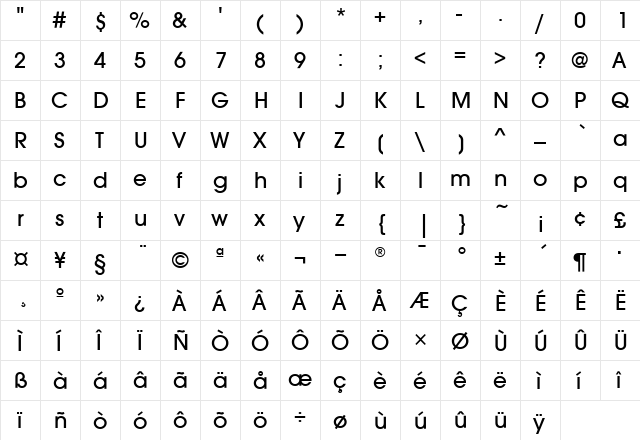
AvantGardeMdITC Regular
Design Context for AvantGardeMdITC Typeface
AvantGardeMdITC is a composed and adaptable typeface that performs quietly and consistently across a wide range of design contexts.